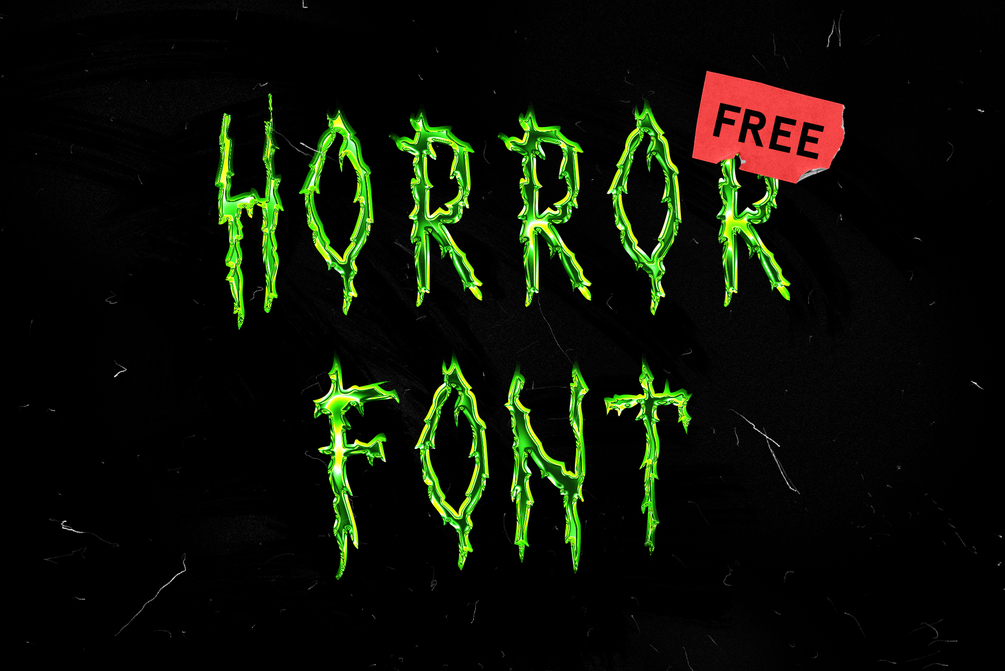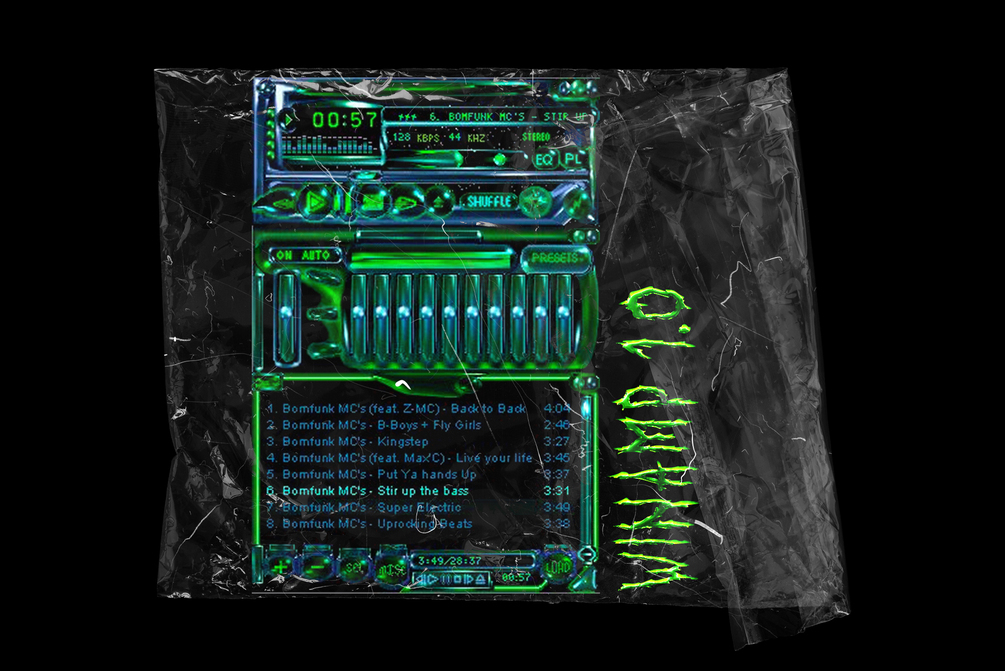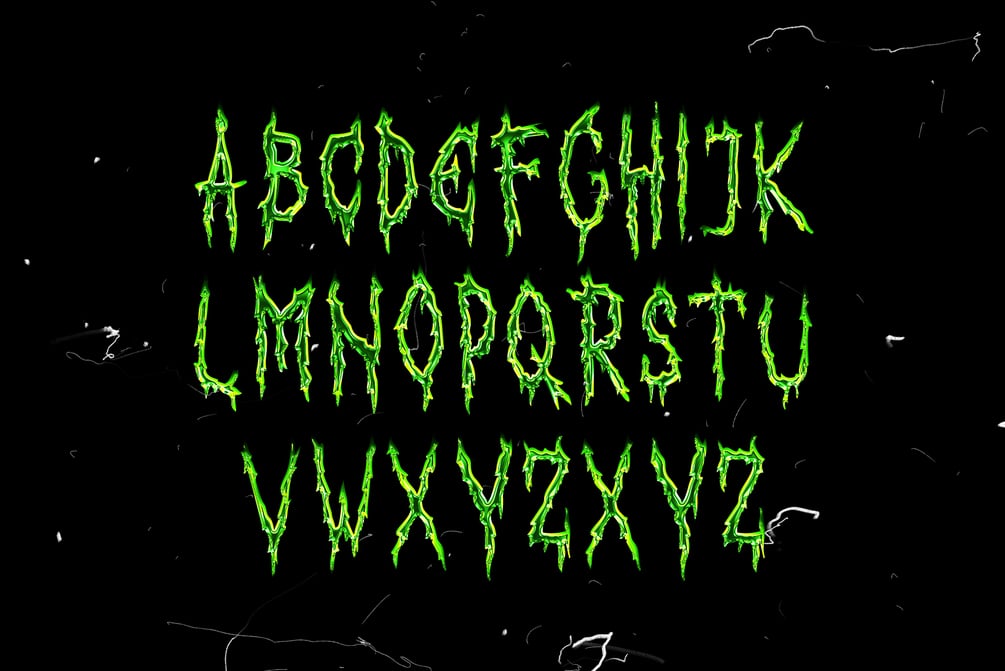
Horror Free Font
Horror is a free handwritten font. Inspired by the current situation in the world. Horror will be a great asset for making your next design projects. It features 67 characters and has only all caps. The basic letters are included. Free for personal and commercial projects. Stay positive and wash your hands, get some air and go for a hike.